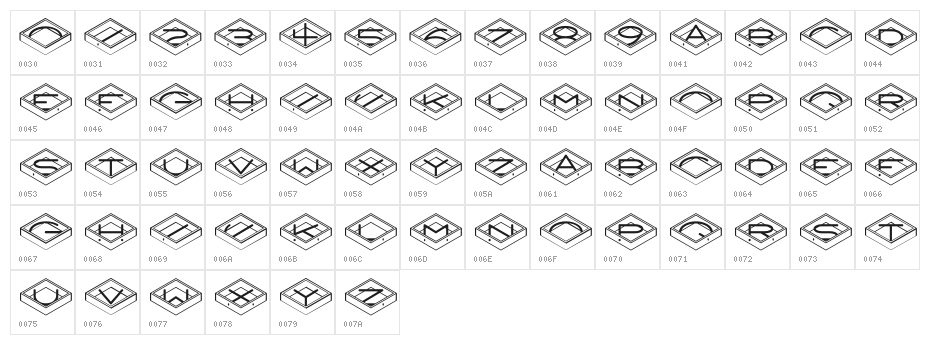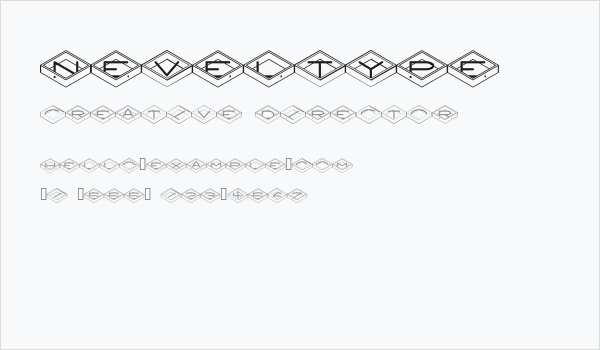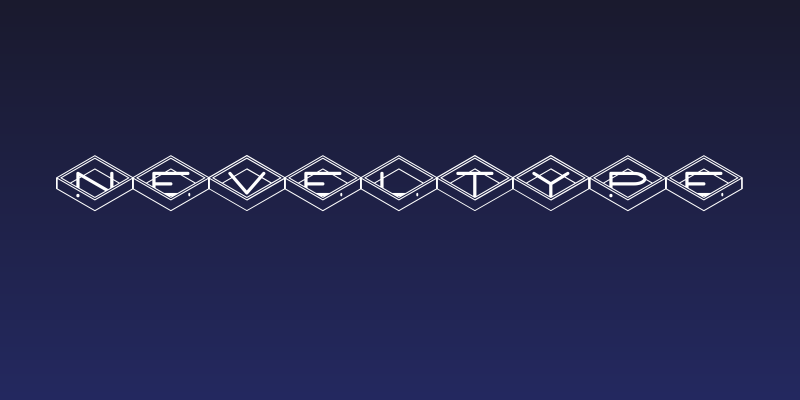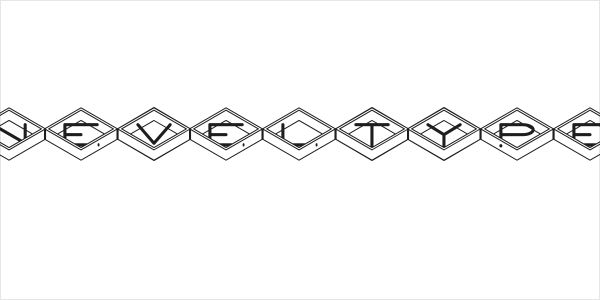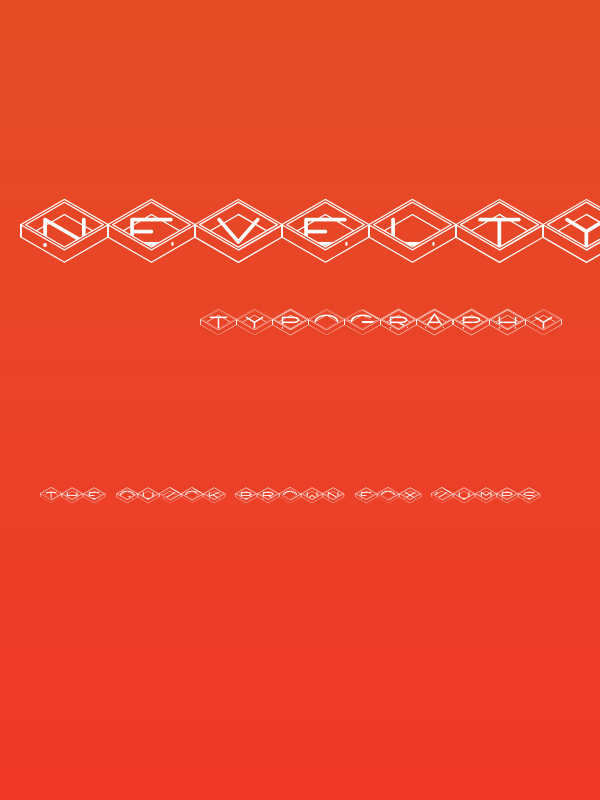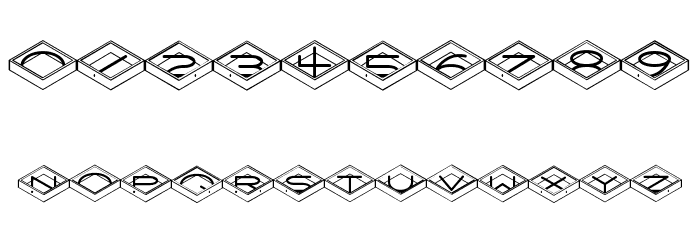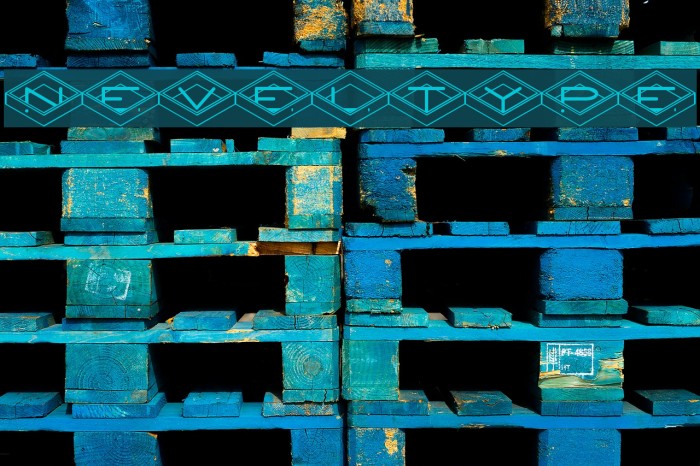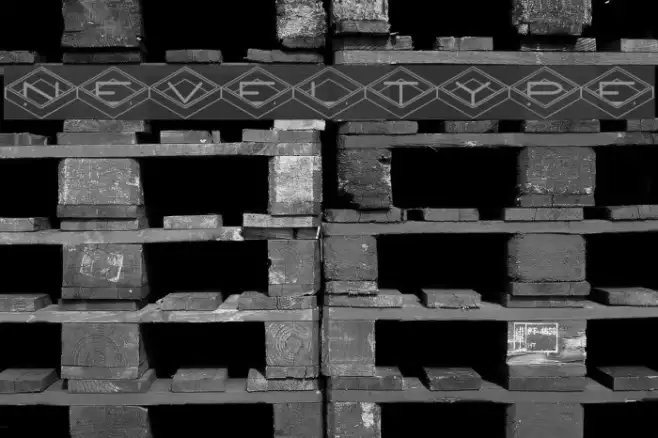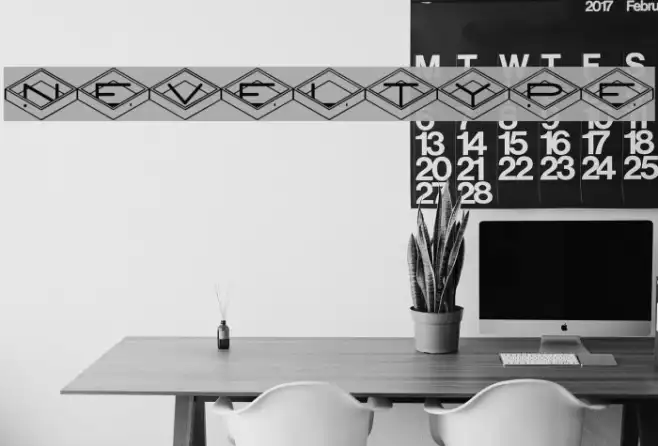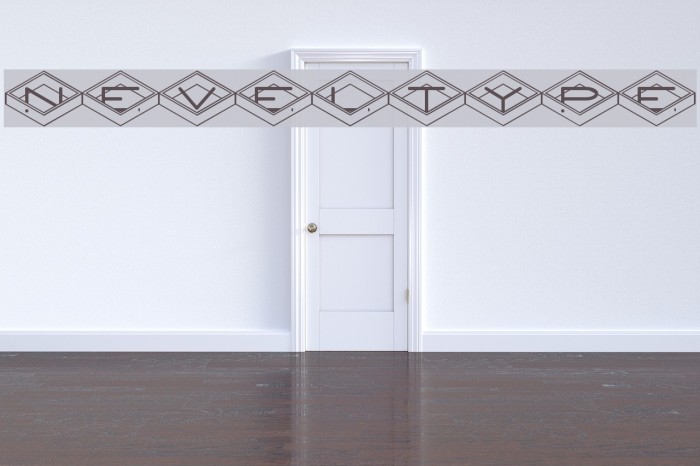
NevelType Font
NevelType Description
This font features a unique and modern design with each character enclosed within a diamond-shaped outline. The letters are constructed with clean, geometric lines, giving them a futuristic and structured appearance. The uppercase and lowercase letters maintain a consistent style, emphasizing symmetry and balance. Numbers and special characters are also included, following the same design principles. The font's distinct style makes it stand out, suitable for creative and artistic projects where a bold statement is desired.
| Use Case | Logos, Posters, Digital Art |
| Proposed Projects | Ideal for branding, logos, posters, and digital artwork where a futuristic and artistic touch is needed. |